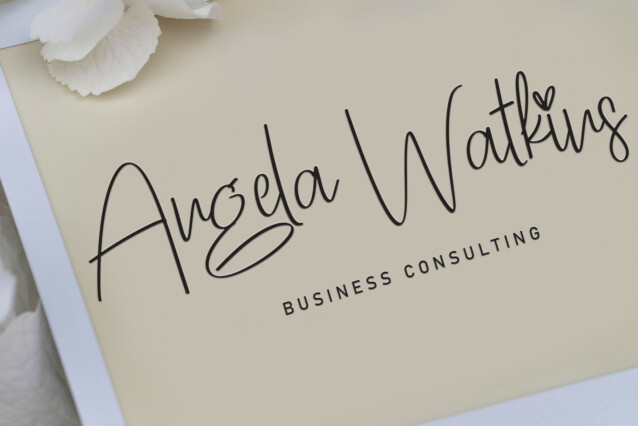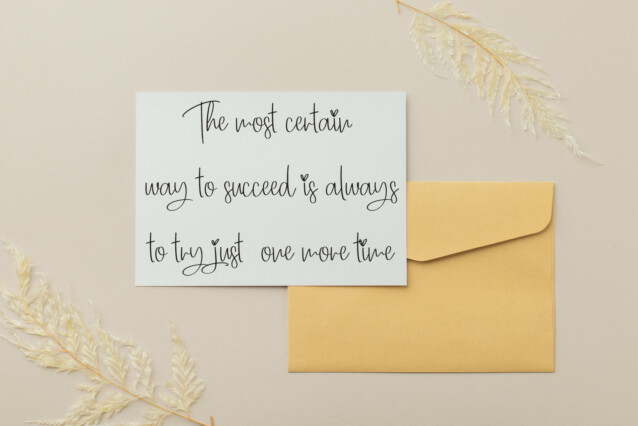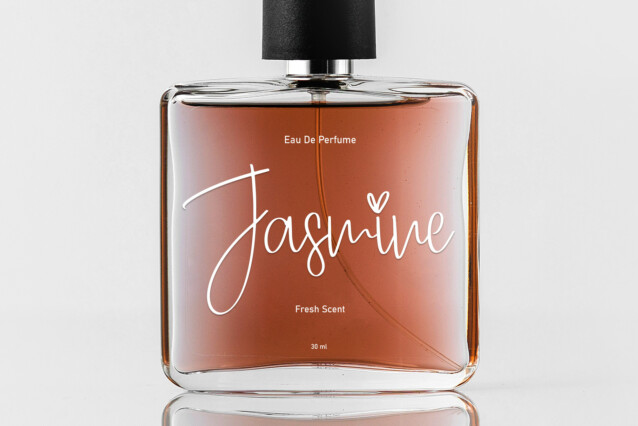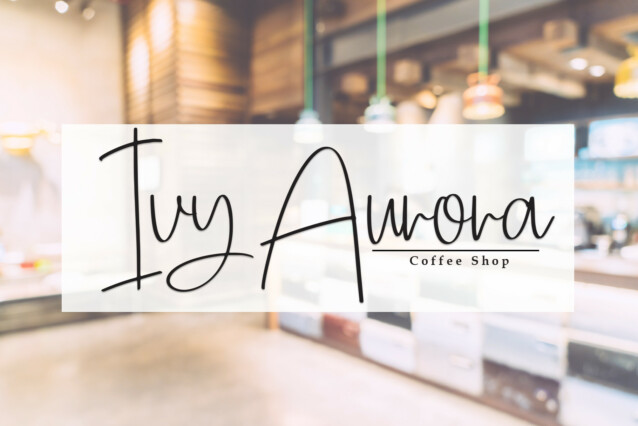
Outright Script Font
Outright Script Font is a sweet and cursive handwritten font. This gentle font will look gorgeous on a variety of design ideas. It will add a joyful and romantic touch to each of your projects!